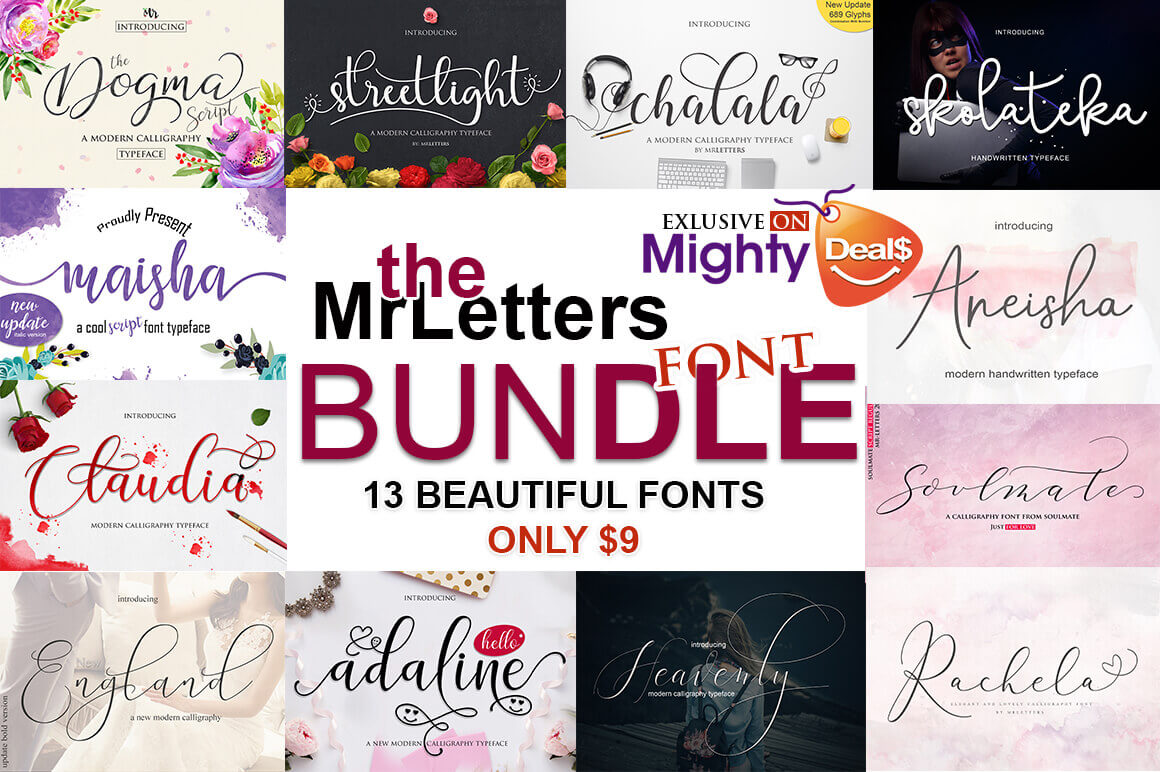
With the MrLetters Font Bundle, you'll add some elegance to your typeface library. You'll get 13 gorgeous, modern script fonts that offer a slew of OpenType Features. With the extended license, you can whip up all sorts of personal and commercial products from invitations to T-shirts.
- 13 beautiful, modern script fonts.
- OpenType Features - stylistic alternates, contextual alternates, swashes and more.